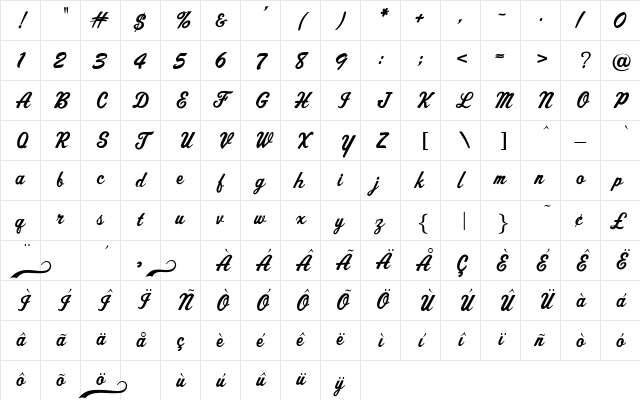
AthleticScript Regular
Foundry: Athletic Department
Design Context for AthleticScript
AthleticScript brings high-energy athletic personality to the page - its confident, muscular forms are built for impact.
Pro Tip: Use AthleticScript in all-caps headlines where its athletic energy can fully express itself. Pair with a solid, simple sans for supporting text.